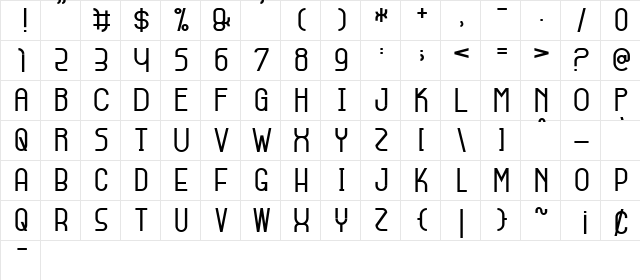
Skinny Buttom Regular Font Preview
Skinny Buttom Regular
Design Context for Skinny Buttom Typeface
Skinny Buttom offers clean, dependable letterforms without strong stylistic allegiance, making it a practical choice for designers who need flexibility.